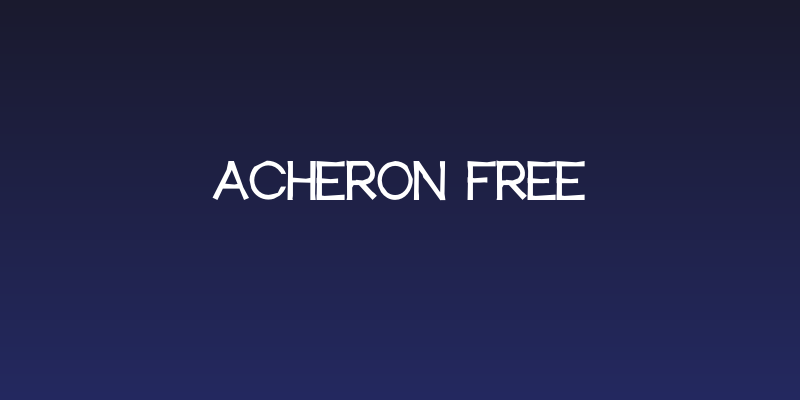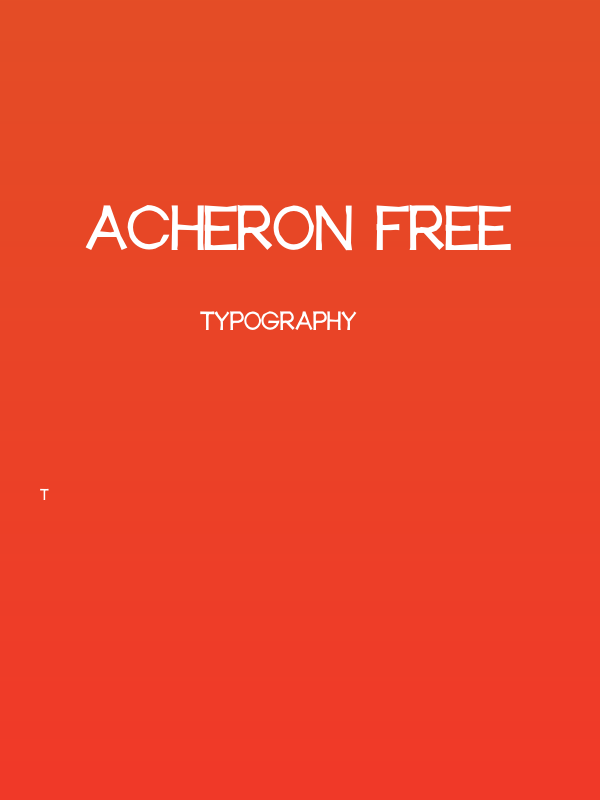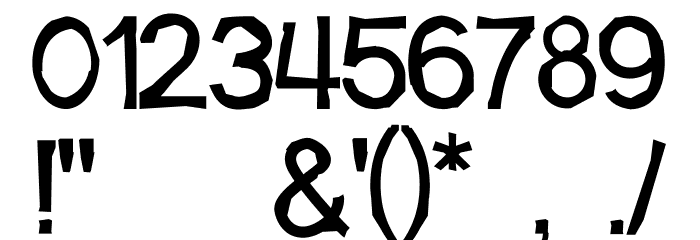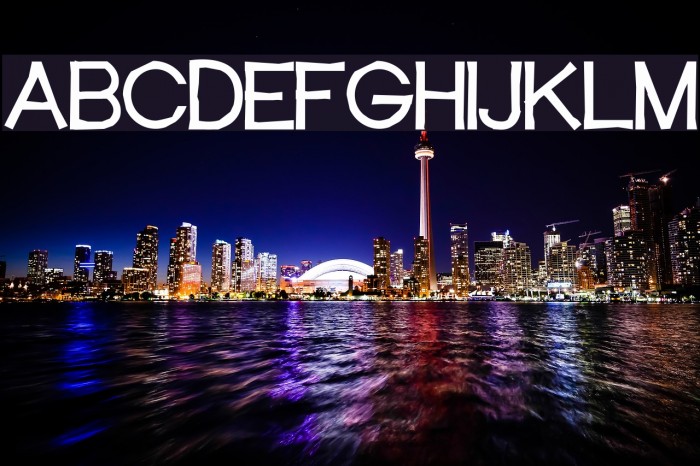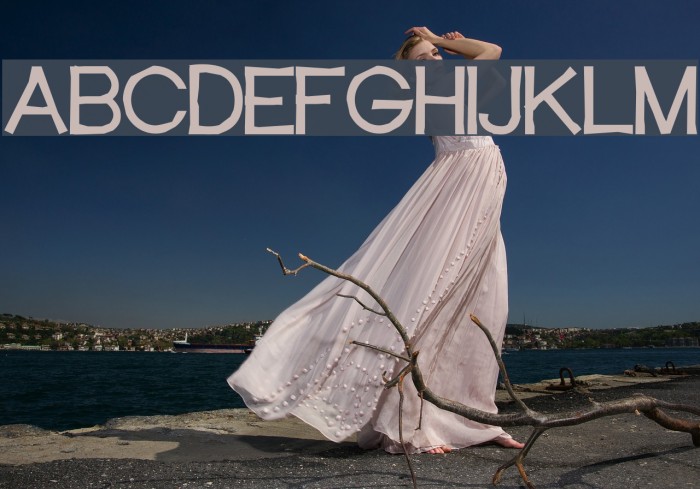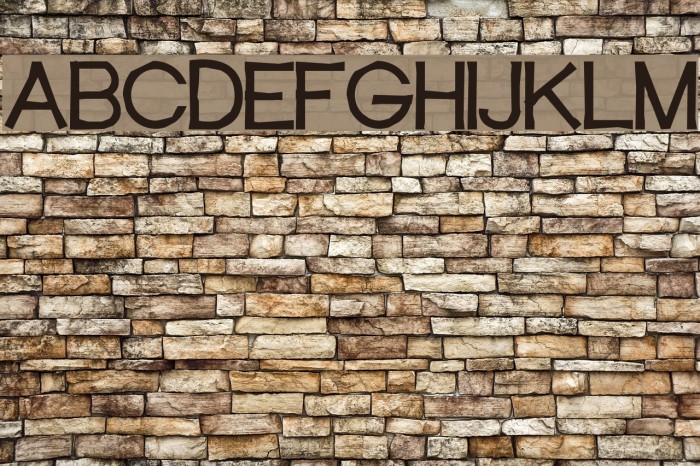
Acheron Free Font
Acheron Free Description
This font features a bold and playful design with a hand-drawn aesthetic. The characters are slightly irregular, giving it a casual and informal feel. The uppercase letters are distinct with a slight tilt, adding to the dynamic appearance. The numerals and special characters maintain the same playful style, making it suitable for creative projects. The overall look is both modern and quirky, ideal for capturing attention in a fun and engaging way.
| Overall Style | Playful, Modern |
| Proposed Projects | Ideal for children's books, playful branding, posters, and creative social media graphics. |